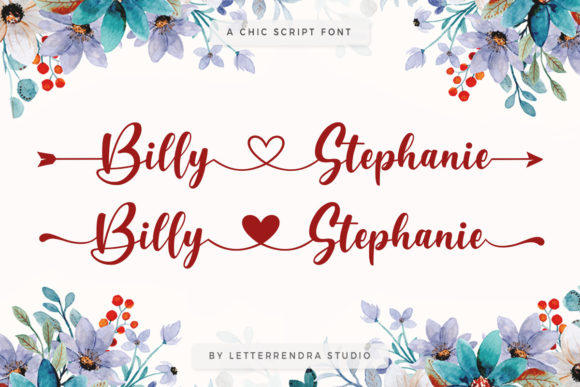
The Designer’s Delight: Billy Stephanie Font
I’ll never forget the time I was working on a project for a client who wanted a elegant and sophisticated look. I had spent hours browsing through font libraries, but nothing seemed quite right. That was until I stumbled upon Billy Stephanie, a delicate script font that exceeded my expectations. In this article, I’ll share my experience with this beautiful font, its features, and how to make the most of it in your designs.
- ✨ Delicate and elegant design: Billy Stephanie is a beautifully crafted script font that adds a touch of sophistication to any design.
- ✅ Highly detailed: The font is meticulously designed, making it perfect for projects that require a high level of detail.
- 💡 PUA encoded: The font is PUA encoded, which means you can easily access all the glyphs and swashes, giving you endless creative possibilities.
While Billy Stephanie is an amazing font, there are a few things to keep in mind:
- ⚠️ Legibility at small sizes: As with many script fonts, Billy Stephanie can be a bit tricky to read at small sizes. Make sure to test it at different sizes to ensure it’s legible for your project.
- 🤔 Pairing with other fonts: While Billy Stephanie is beautiful on its own, it can be a bit challenging to pair with other fonts. Experiment with different combinations to find the perfect match.
The Story Behind Billy Stephanie
Billy Stephanie is a font designed with love and care. While I couldn’t find any information on the designer’s background, it’s clear that they put their heart and soul into creating this beautiful font. The attention to detail and the delicate design make it a standout in any font library.
A: PUA (Private Use Area) encoding is a way of encoding fonts that allows designers to access additional glyphs and swashes. This means that you can easily access all the glyphs and swashes in Billy Stephanie, giving you endless creative possibilities.
Q: Is Billy Stephanie suitable for body text?
A: While Billy Stephanie is a beautiful font, it’s not recommended for body text. Script fonts can be difficult to read in large blocks, so it’s best to use it for headings or titles.